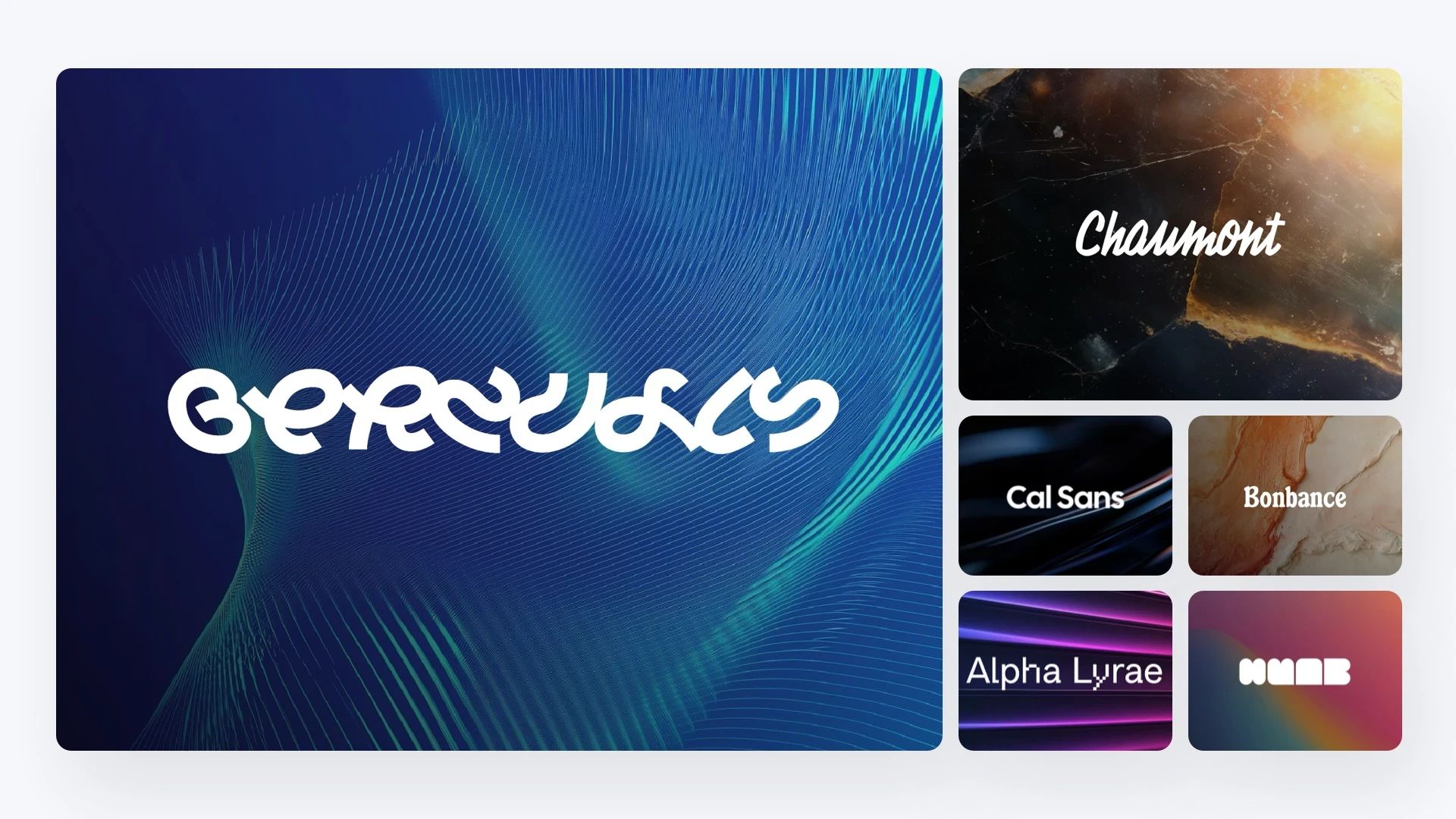
20+ Best Display fonts for your Framer website - Frameblox
Explore 20+ top Framer fonts that blend style, readability, and performance for portfolios, landing pages, or blogs, optimized for aesthetics and usability.